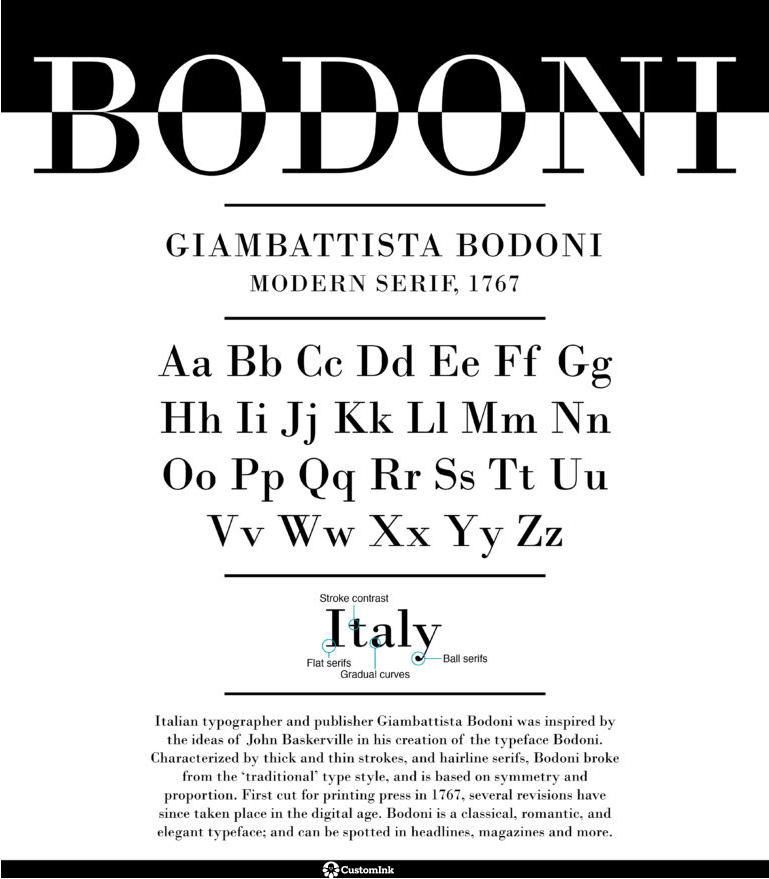
Font of the Week — Bodoni
Bodoni was created in 1767 by Italian Typographer Giambattista Bodoni. Giambattista Bodoni found inspiration for this tried and true typeface thanks to French Founder, John Baskerville. Bodoni is an example of an early font that broke from traditional typefaces, instead embracing thick and thin strokes and hairline serifs.
Bodoni is hailed by some as the “most elegant typeface every designed”, which is exactly why we had to feature this timeless font.